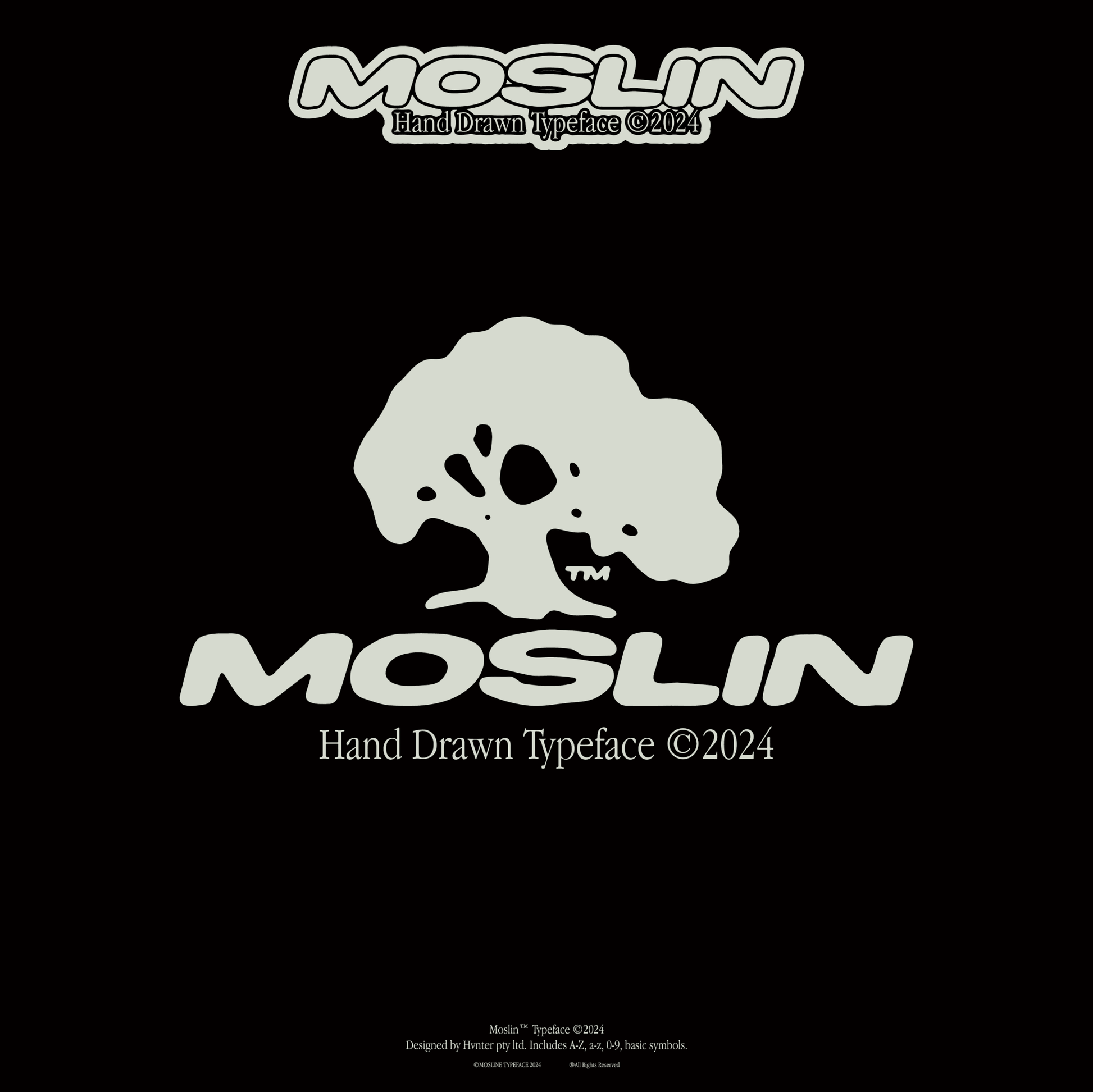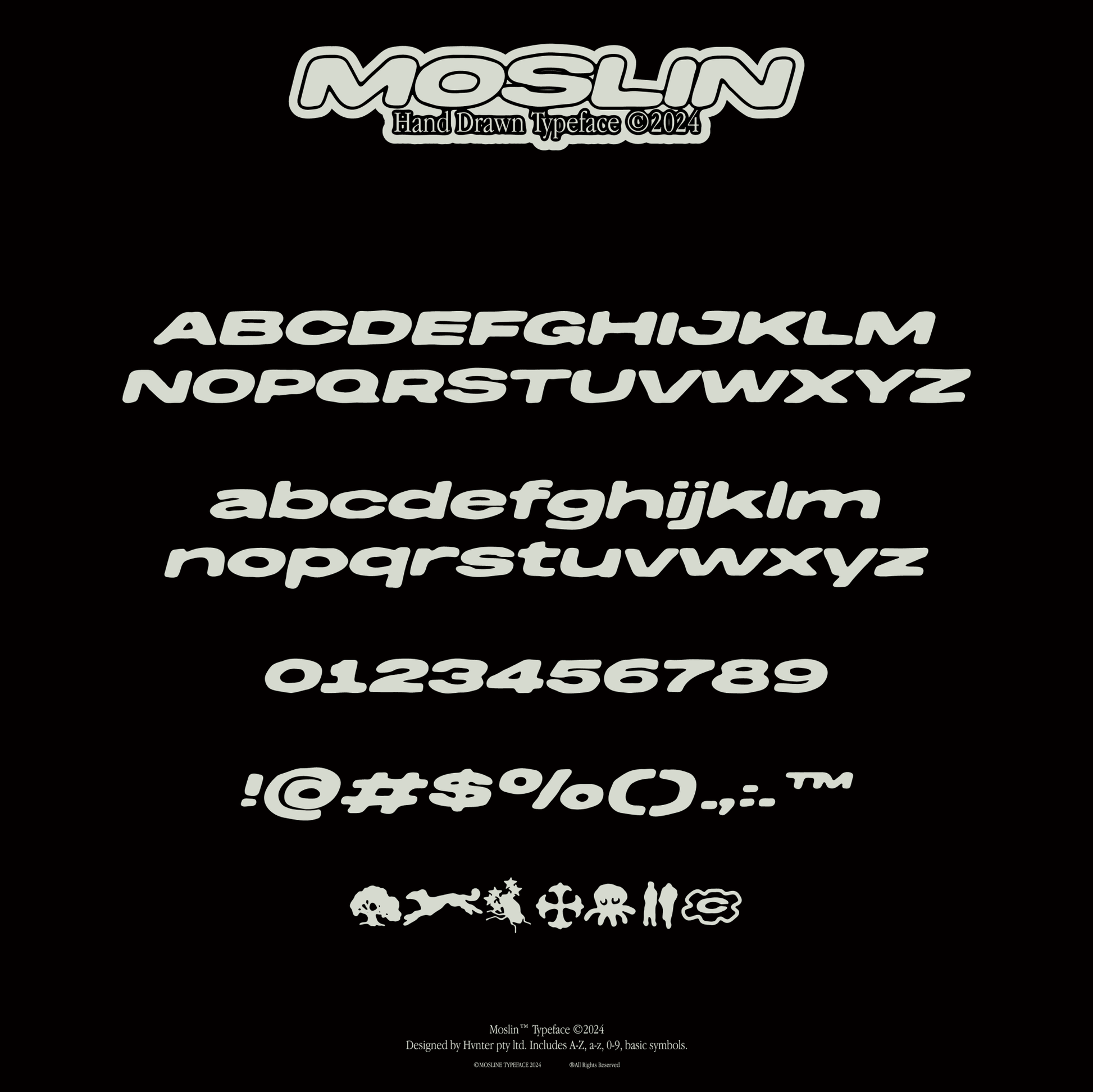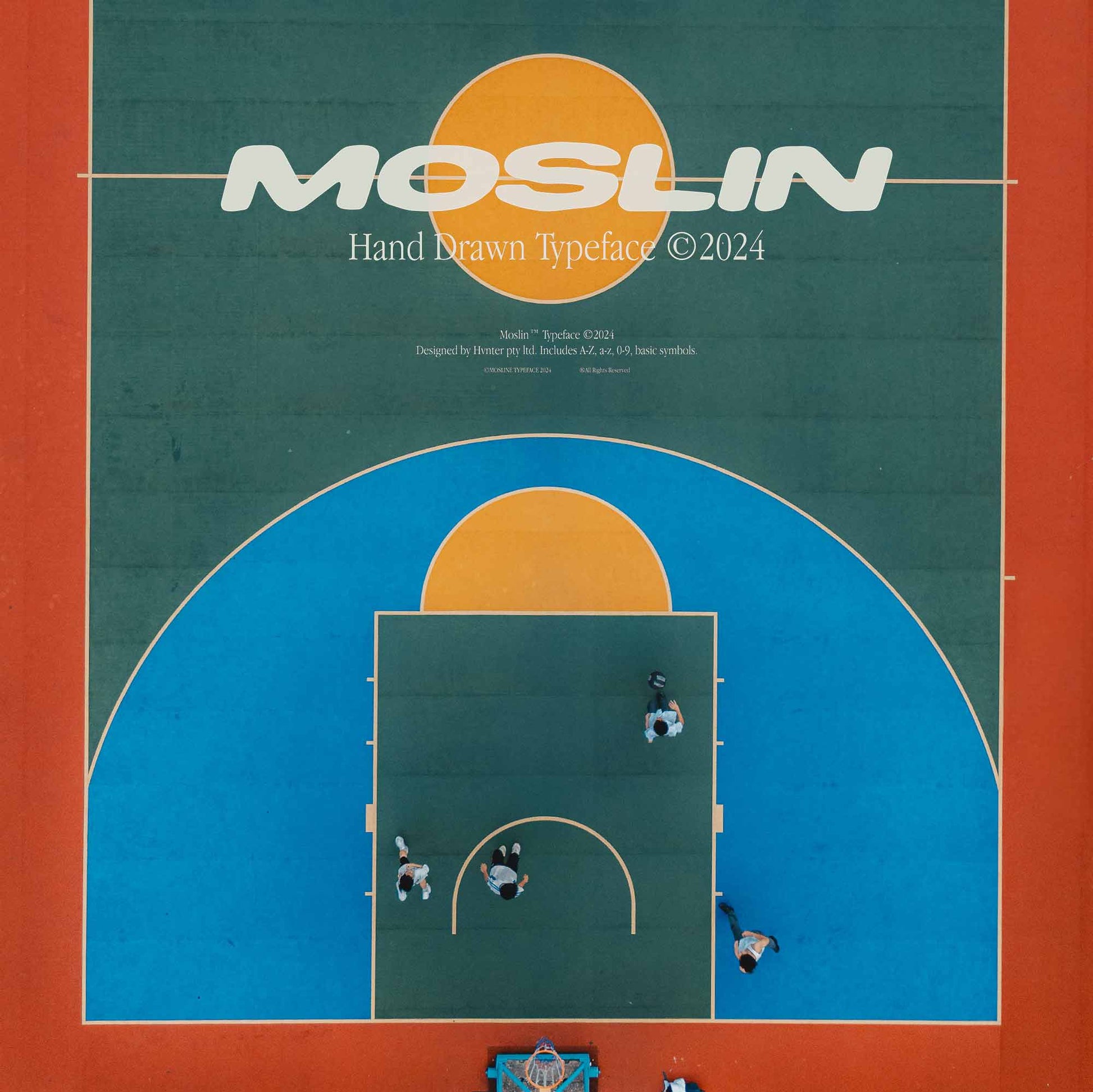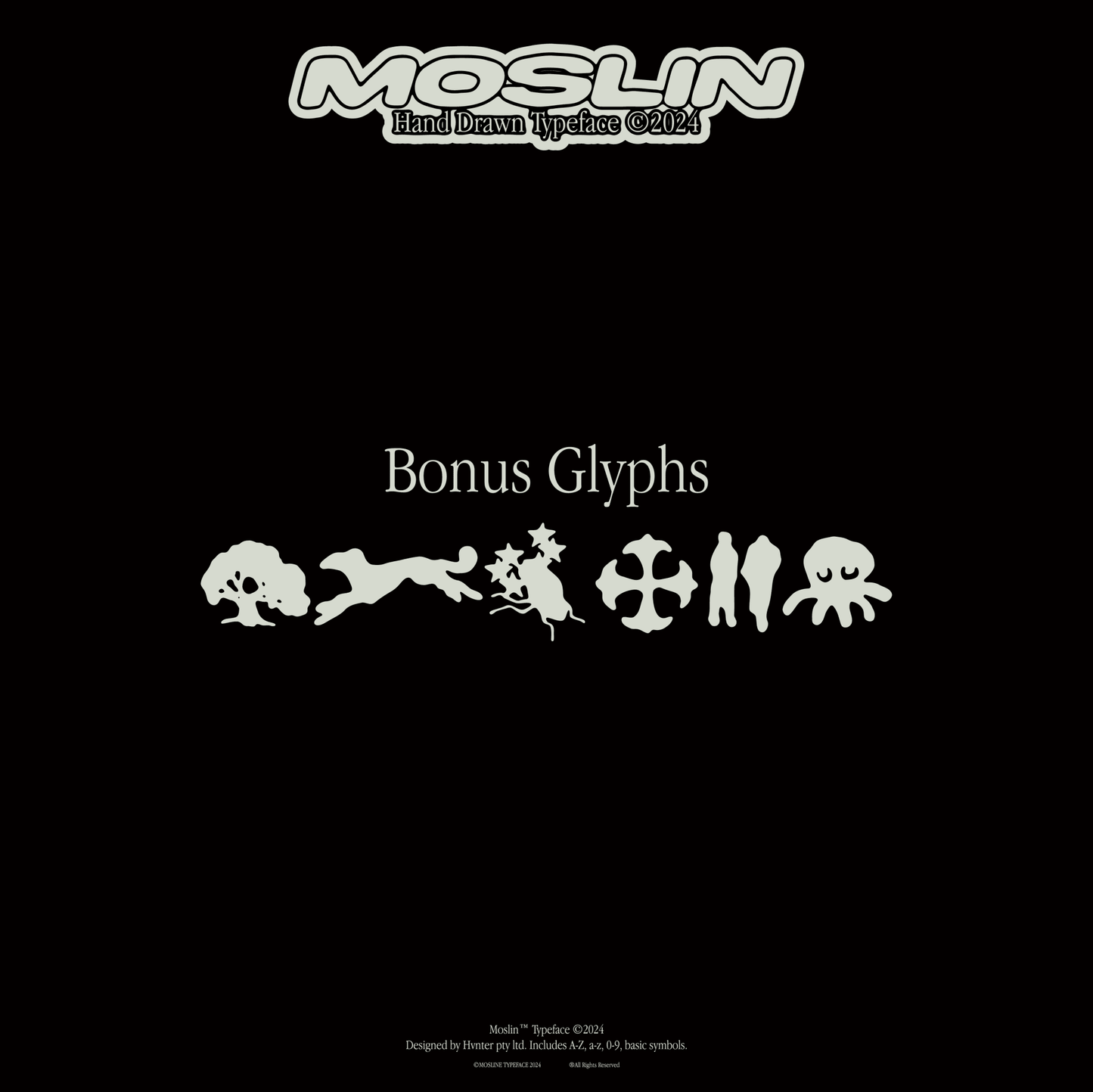
Moslin — Hand Drawn Typeface
Some typefaces are engineered.
Moslin was drawn.
Not precision-grided to death. Not sterilized.
Drawn by hand — where pressure changes, curves wobble slightly, and letters feel like they were shaped by instinct instead of software.
Moslin carries that imperfect confidence.
Bold, rounded forms with a street-soft edge.
Playful enough for culture. Solid enough for brands.
It feels like a logo before it becomes one.
This is the kind of type you use when you want personality without noise.
When you want warmth without losing presence.
When you want something that feels human.
- Bonus hand-drawn glyphs (illustrative icons included)
The bonus glyphs lean into Moslin’s world — organic, slightly surreal, a little mythical. Marks that feel like they belong on a wall, a zine, a record sleeve, or stitched into a hoodie.
The Energy
Moslin sits somewhere between:
- Early streetwear logotypes
- Hand-tagged graphics
- Soft-blob Y2K typography
- DIY skate culture
- Independent label branding
It’s not retro.
It’s not futuristic.
It’s outside the timeline.
You can see it working on: Apparel graphics, music branding, posters & zines, packaging, cultural campaigns, creative agency identity work, experimental digital projects
It holds its own in black and white — which tells you everything.